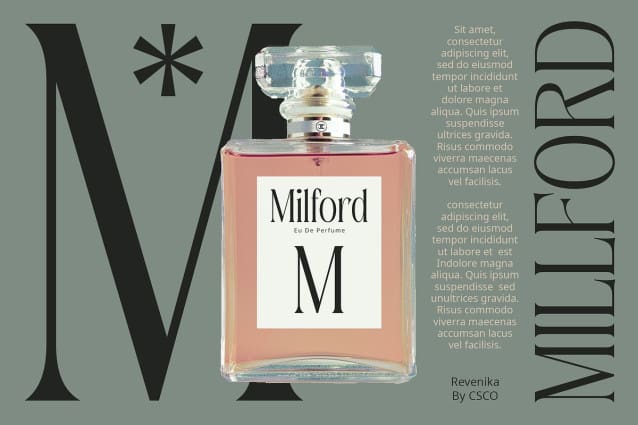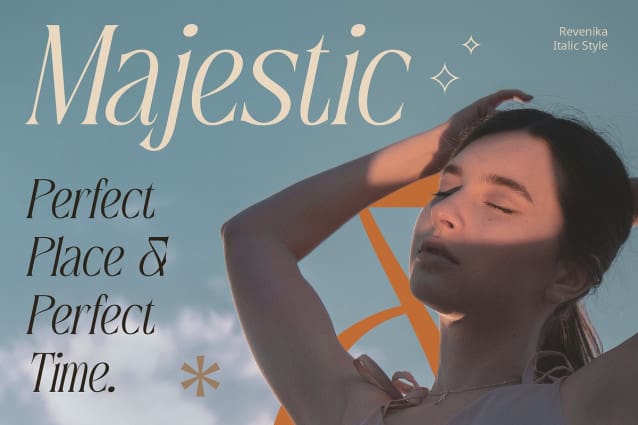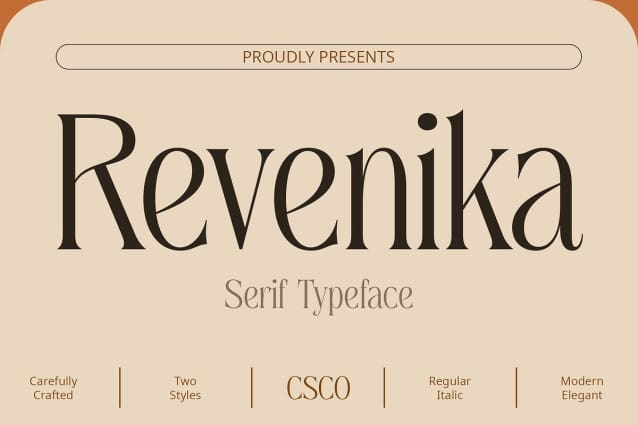
Revenika Font
Revenika Font, an elegant serif typeface, redefines modern sophistication with its timeless design and refined aesthetics.
Feminine Elegance in Every Stroke Crafted with delicate precision, Revenika infuses feminine elegance into every stroke, adding a touch of grace and sophistication to your designs.
Versatility Meets Refinement Combining versatility with refinement, Revenika effortlessly transitions from commanding titles to seamlessly integrated body text, enhancing the visual appeal and cohesiveness of any project with its elegant strokes and graceful curves.
Make a Lasting Impression With Revenika Font, make a lasting impression on your audience. Its elegant serifs and timeless charm elevate your designs to new heights of sophistication.
Summary: Revenika – Where Elegance Meets Versatility Revenika elegant serif, the epitome of elegance and versatility, offers a refined serif typeface that adds a touch of sophistication to any design endeavor.